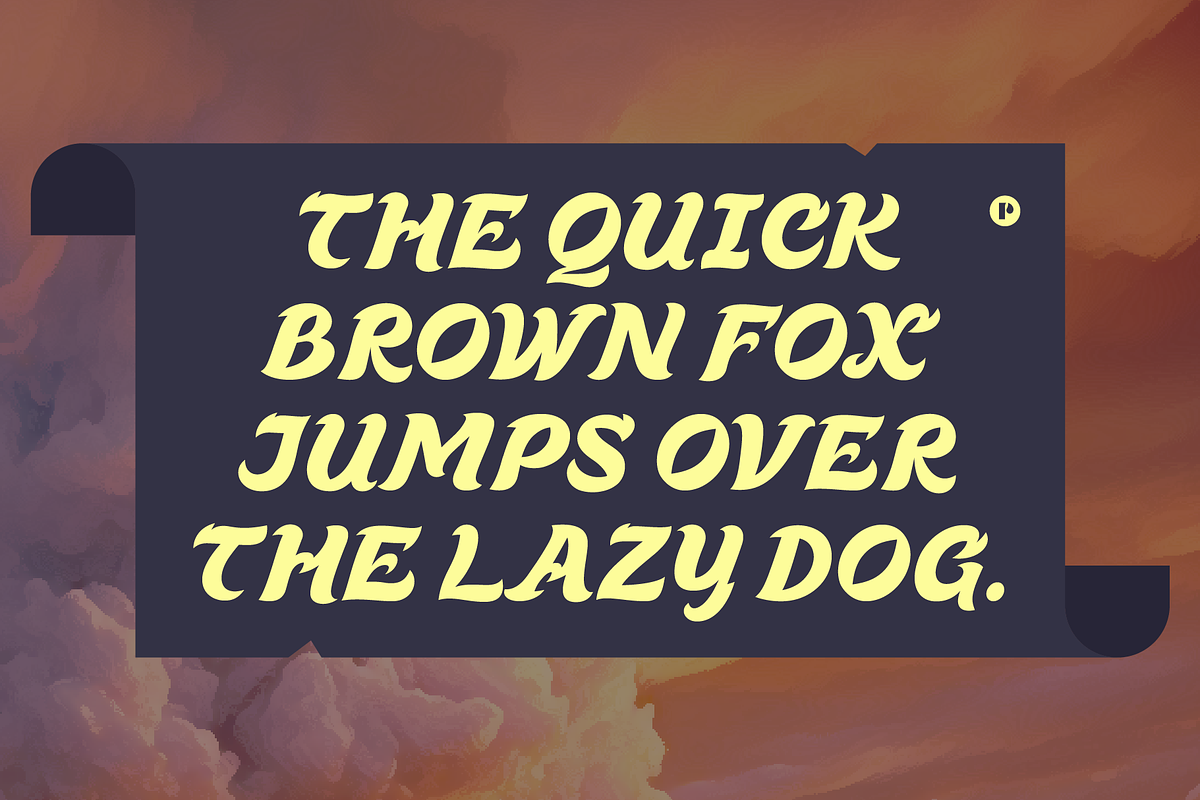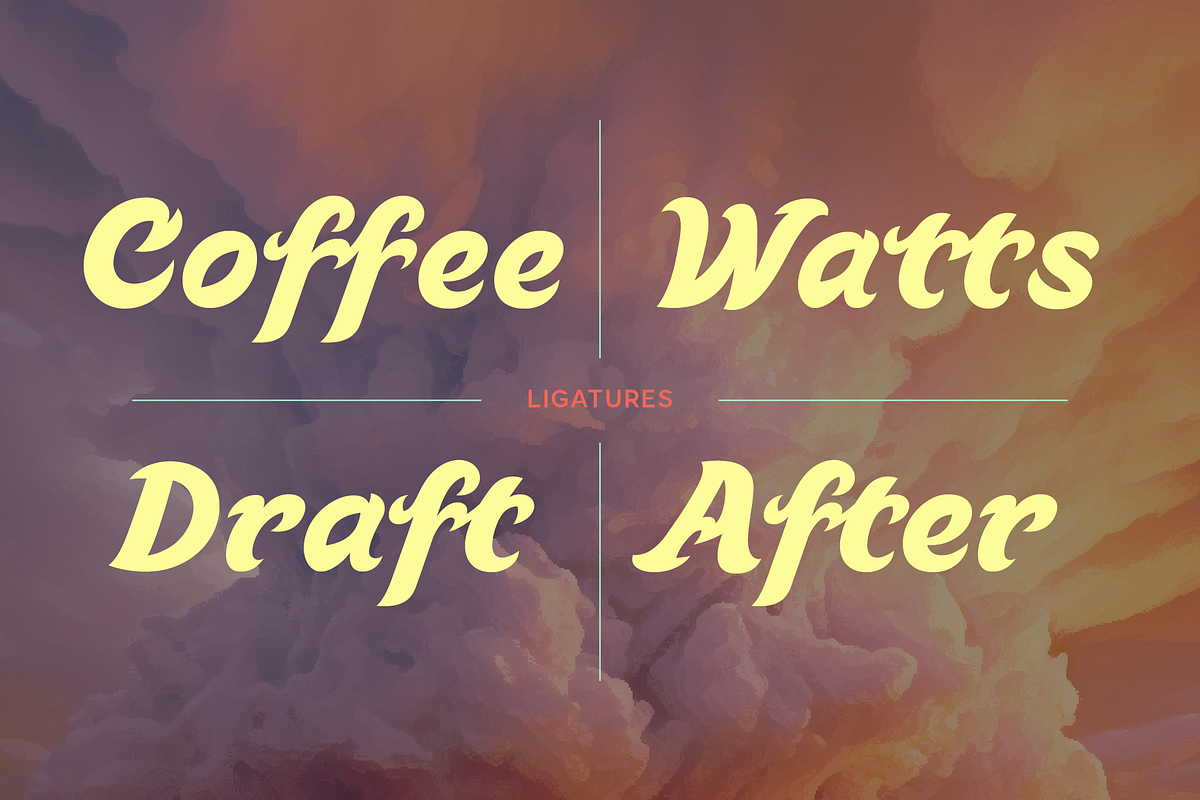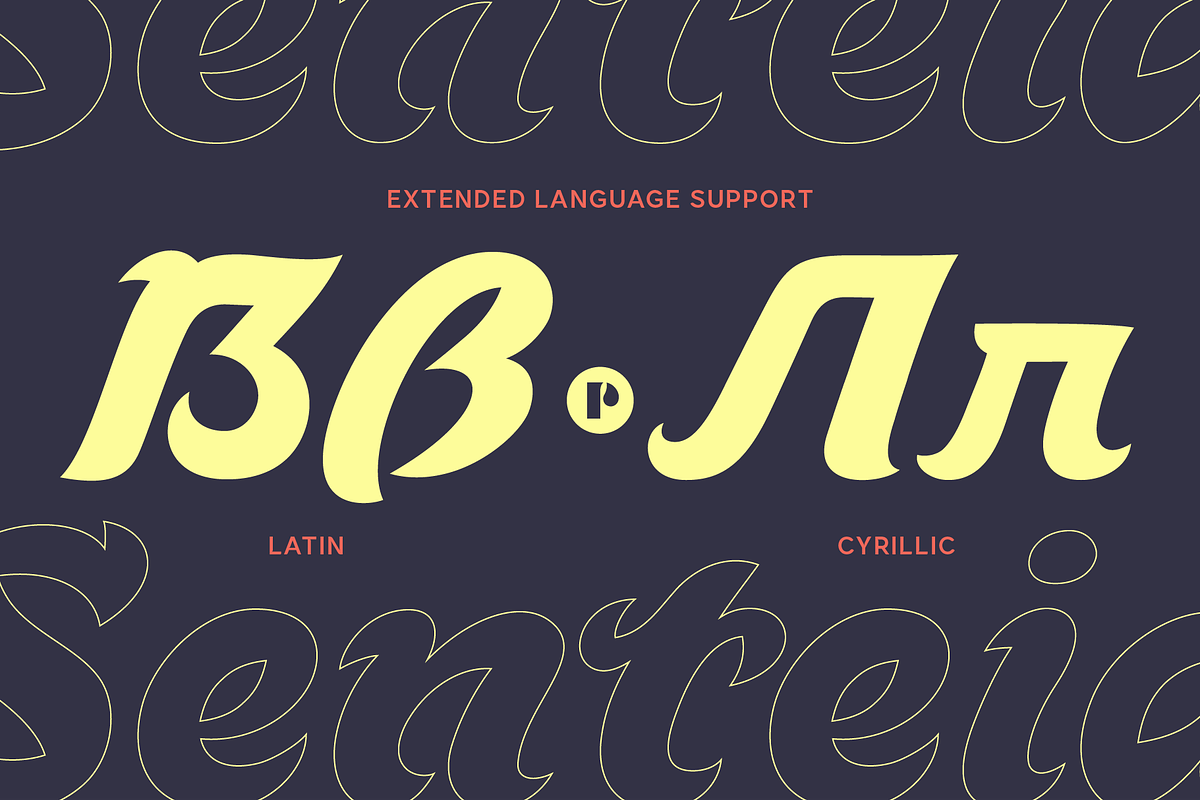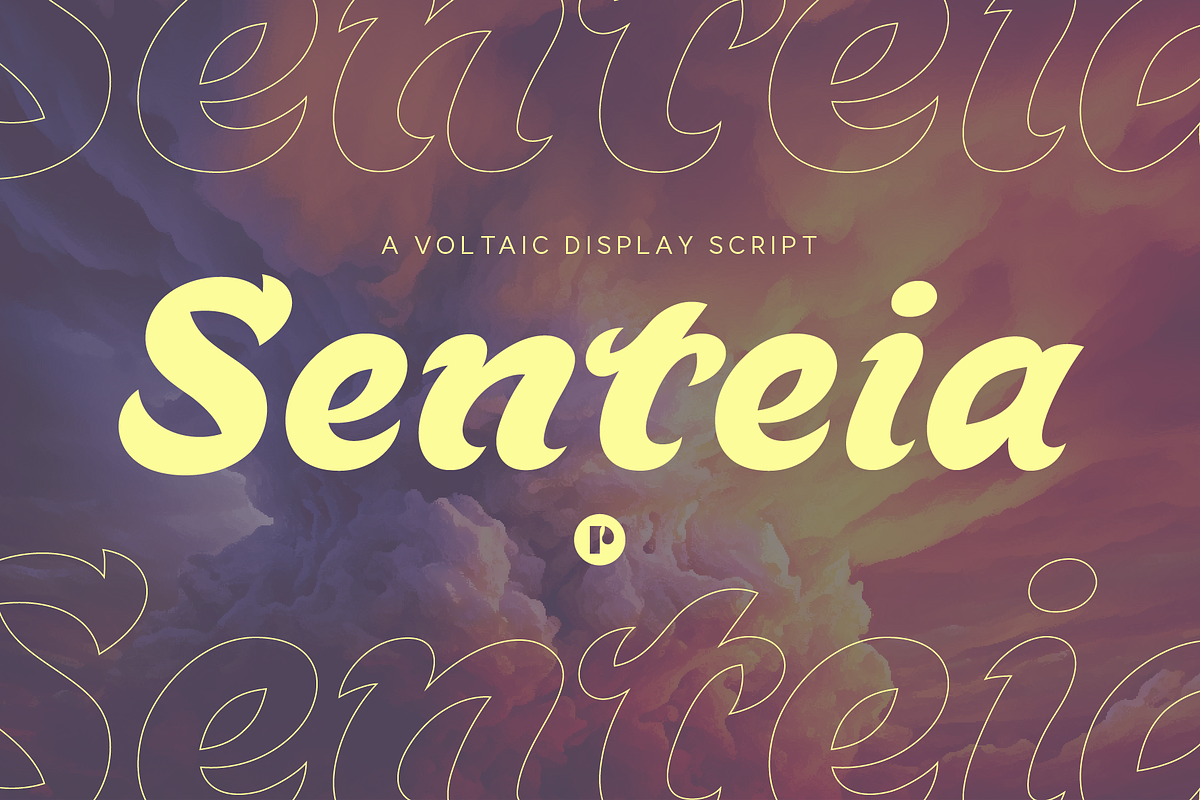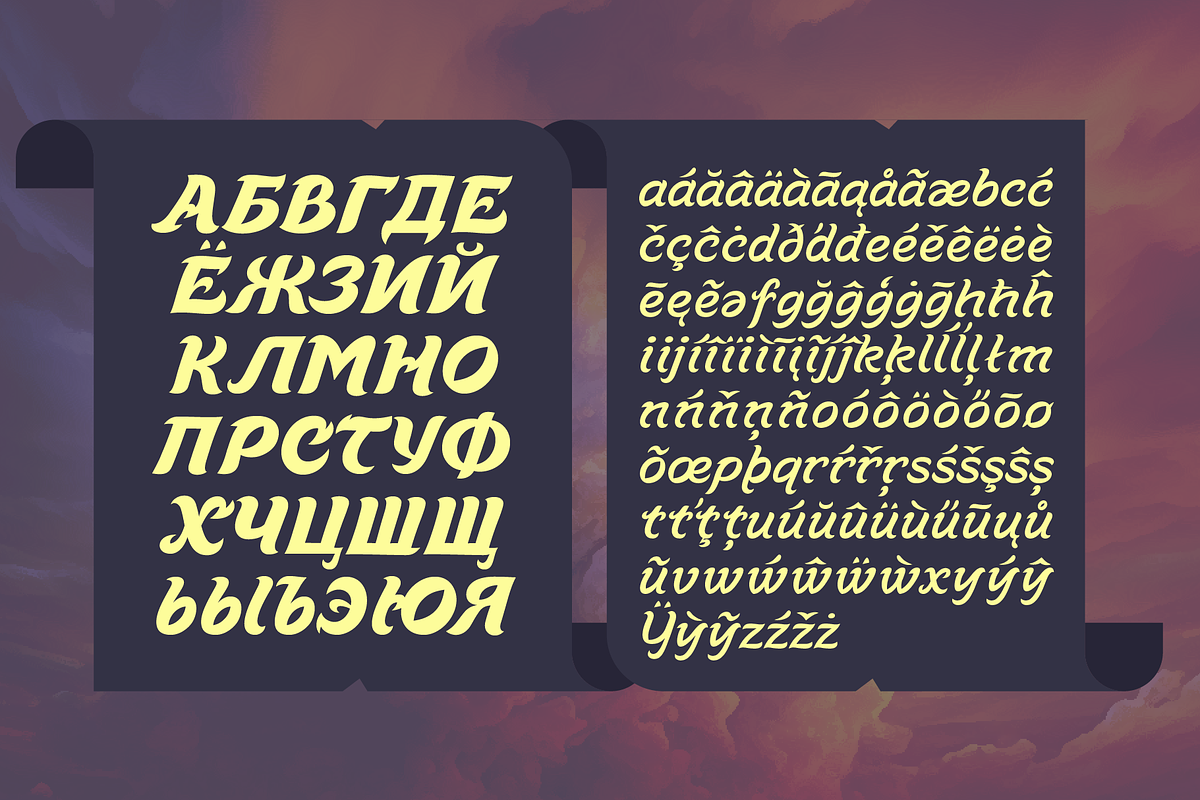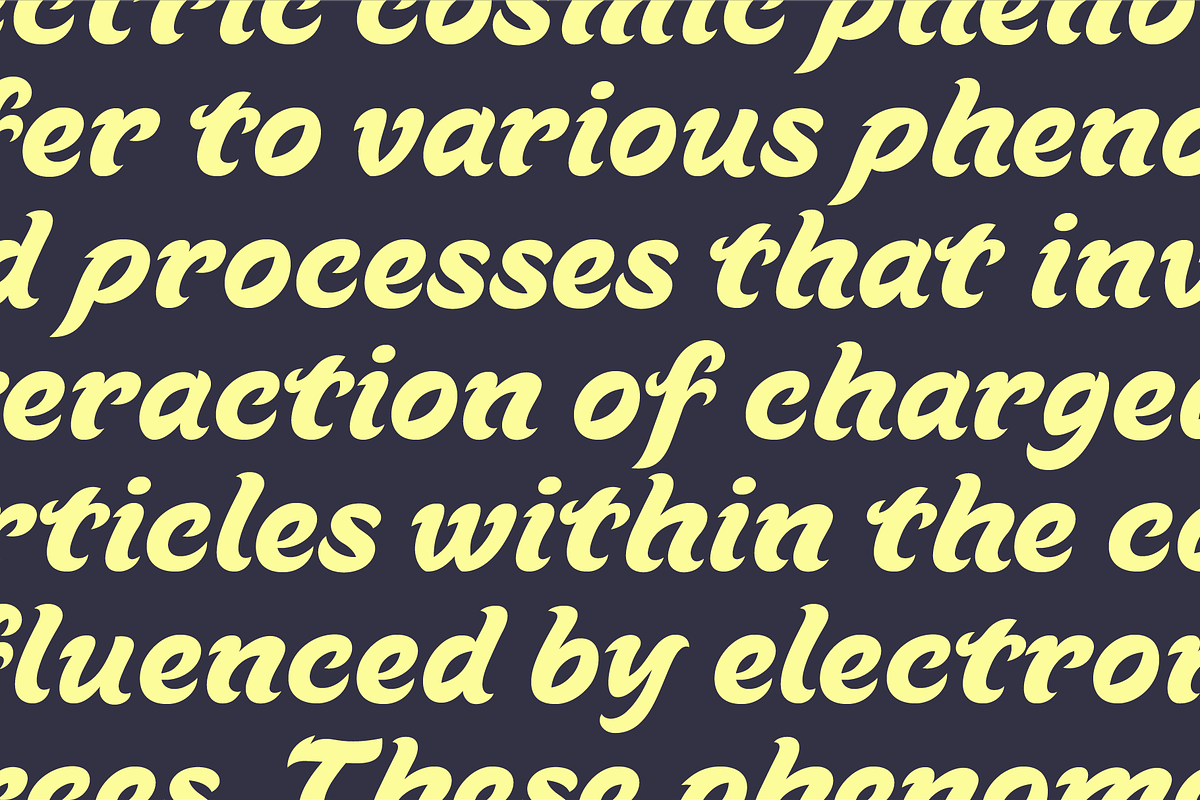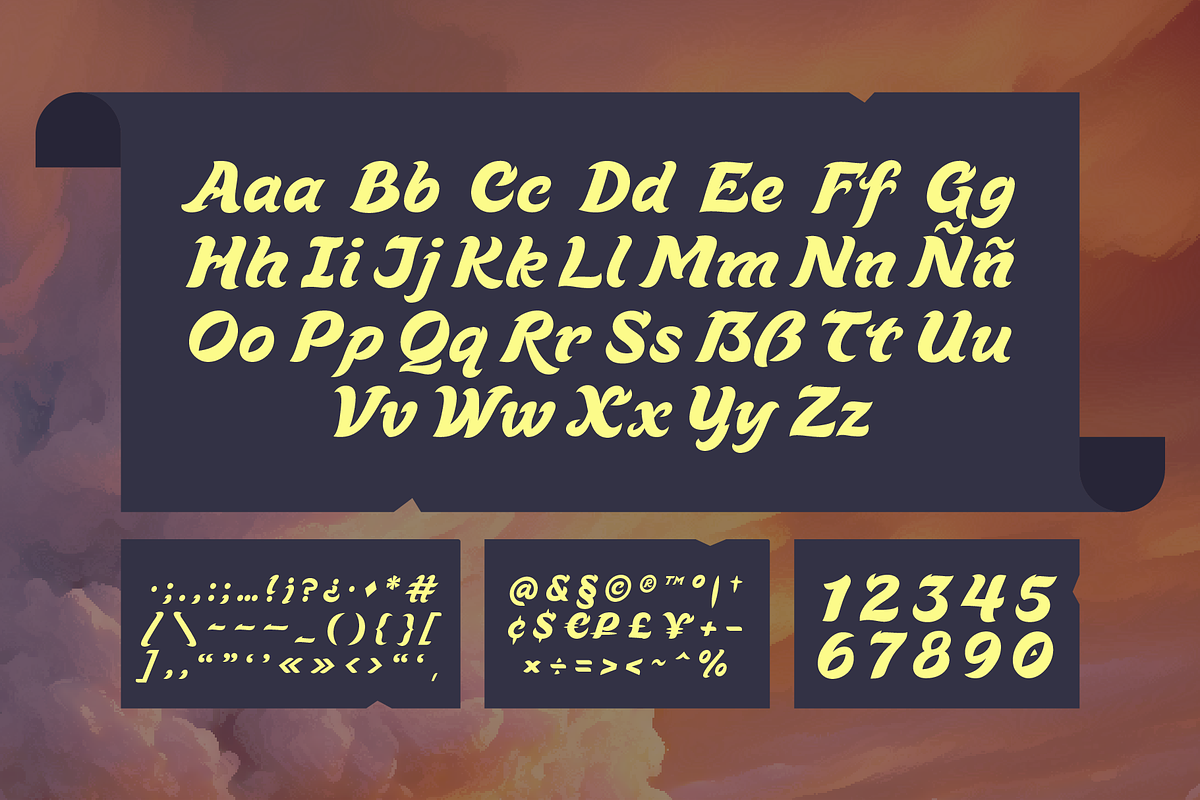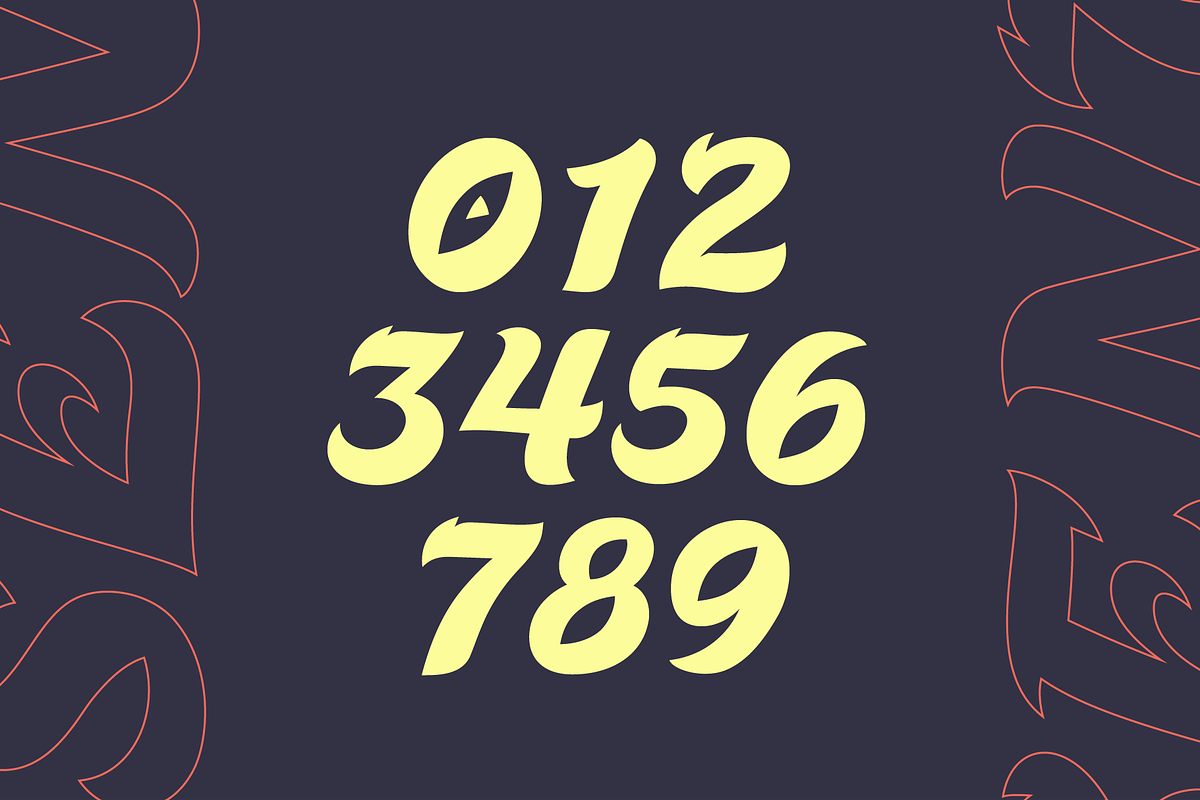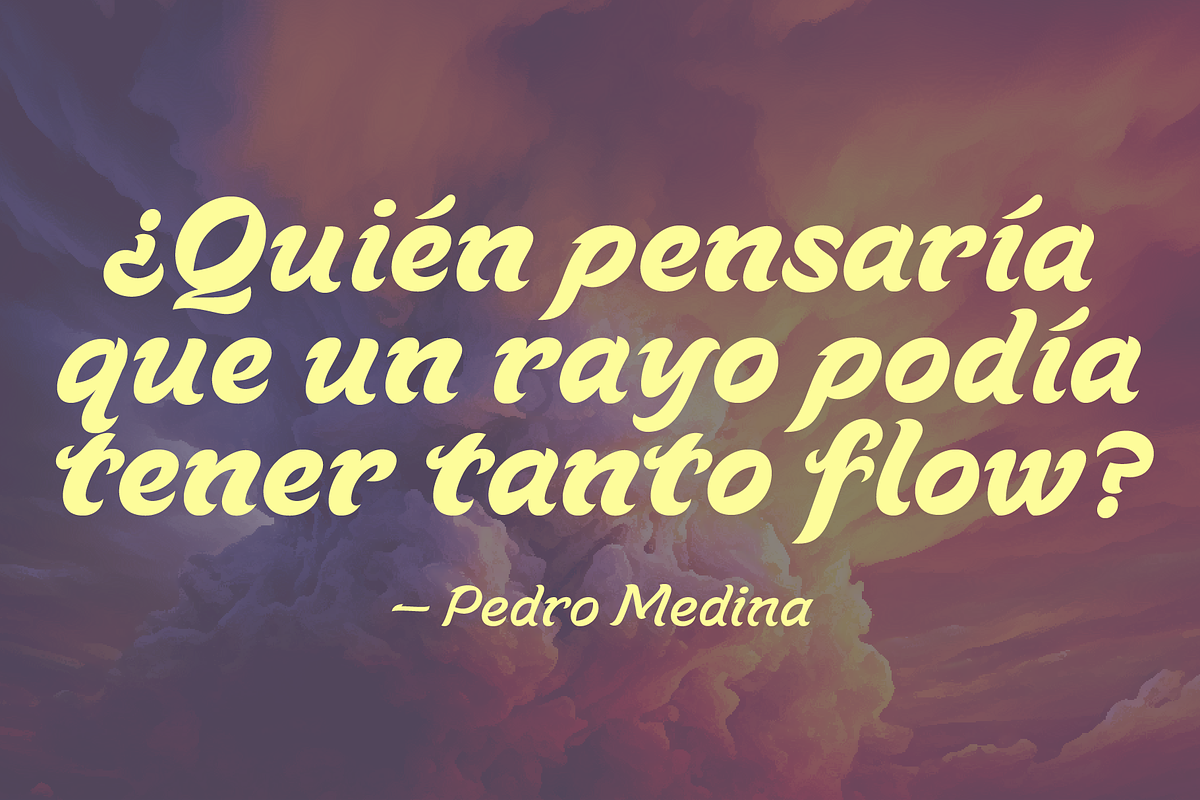
Senteia | Voltaic Brush Typeface
Ever needed an electric font that does look good? Search no more! Senteia is a brush style font ready to electrify your senses!
Ever since I was a kid growing up in the 90s, electricity has captivated my imagination. The sight of lightning, with its striking shapes, was everywhere –from logo motifs to video games and movies. Even fonts inspired by its buzzed shape were commonplace. With Senteia, I set out to channel my childhood fascination into a unique typeface of my own. Upon reviewing existing electric fantasy fonts, I was shocked (pun intended) to find that most fell into the same category: sharp angles. Determined to bring a fresh perspective, I infused Senteia with the fluid motion of handwriting. The result? An organic approach to capturing the essence of electrical manifestation.